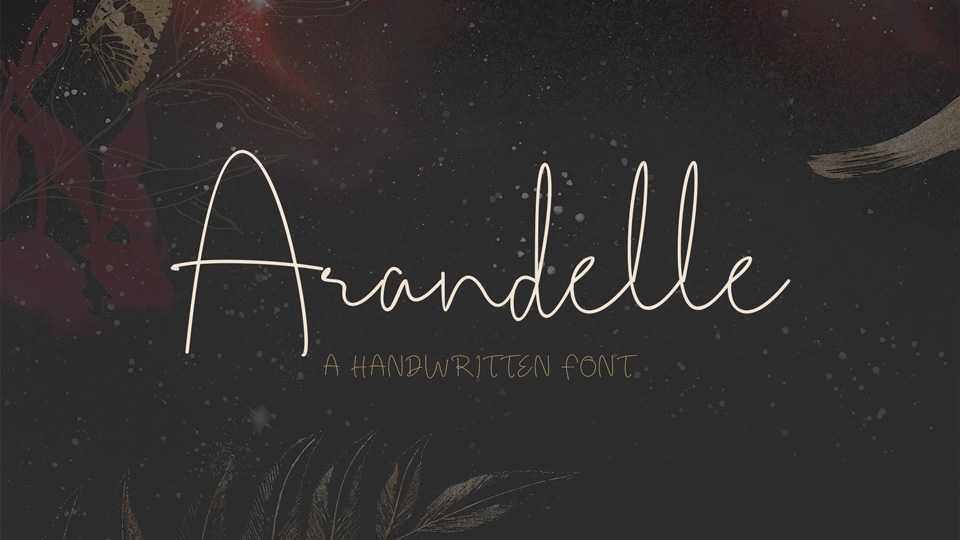
Download Arandelle font, a simple and organic handwritten typeface with a natural flow. With its casual style, Arandelle is perfect for notes, quotes, social media, crafts and more.
Designer: Zainul Arifin